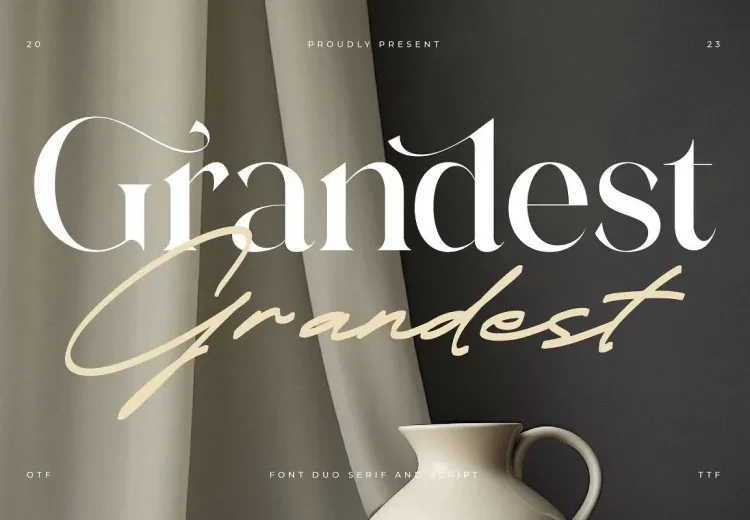
Grandest Font
Grandest Font is an exquisite combination of script and serif styles that captivates with its unique blend of elegance and modern flair. This versatile font pair is ideal for various design applications, including:
Key Features:
• Distinctive Style:
• The elegant script and serif combination offers a sophisticated look, perfect for adding a touch of class to any project.
• Versatile Design Applications:
• Logo Creation: Ideal for crafting memorable and stylish logos.
• Movie Title Designs: Adds a dramatic and polished touch to film titles.
• Clothing Brand Names: Perfect for fashion labels seeking a modern yet timeless appeal.
• Magazine Letters and Quotes: Enhances editorial layouts with a chic and professional look.
• PUA Encoded:
• This feature allows easy access to the font’s incredible symbols and ligatures, enabling more creative possibilities without the need for specialized software.